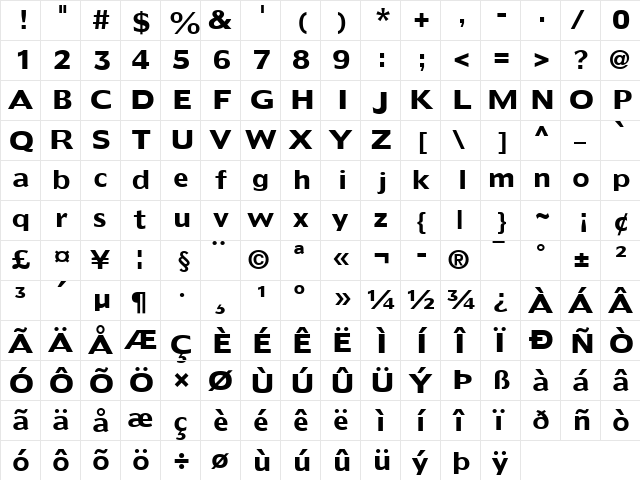
Doric LT Bold Regular
Design Context for Doric LT Bold Typeface
Doric LT Bold takes a measured approach to typography — its balanced proportions and neutral character make it a reliable workhorse for both digital and print work. The heavy weight commands attention and anchors typographic hierarchies.